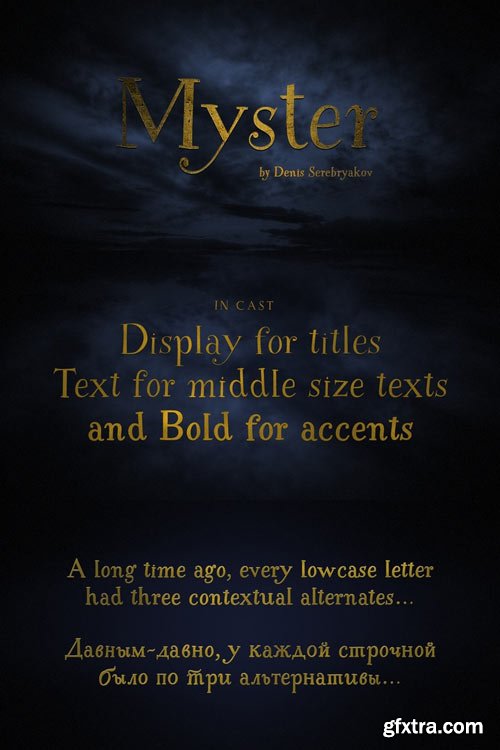
Myster is a truly random font — each lowercase letter has three alternatives, that interchange in the set. This makes Myster look alive, hand-crafted, painted for a special occasion, rather than a font selected from a regular type case